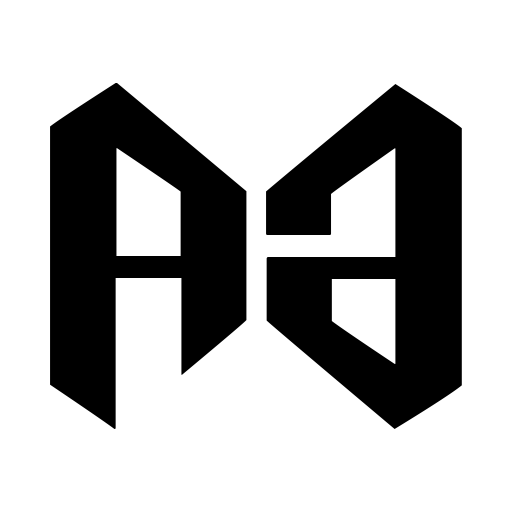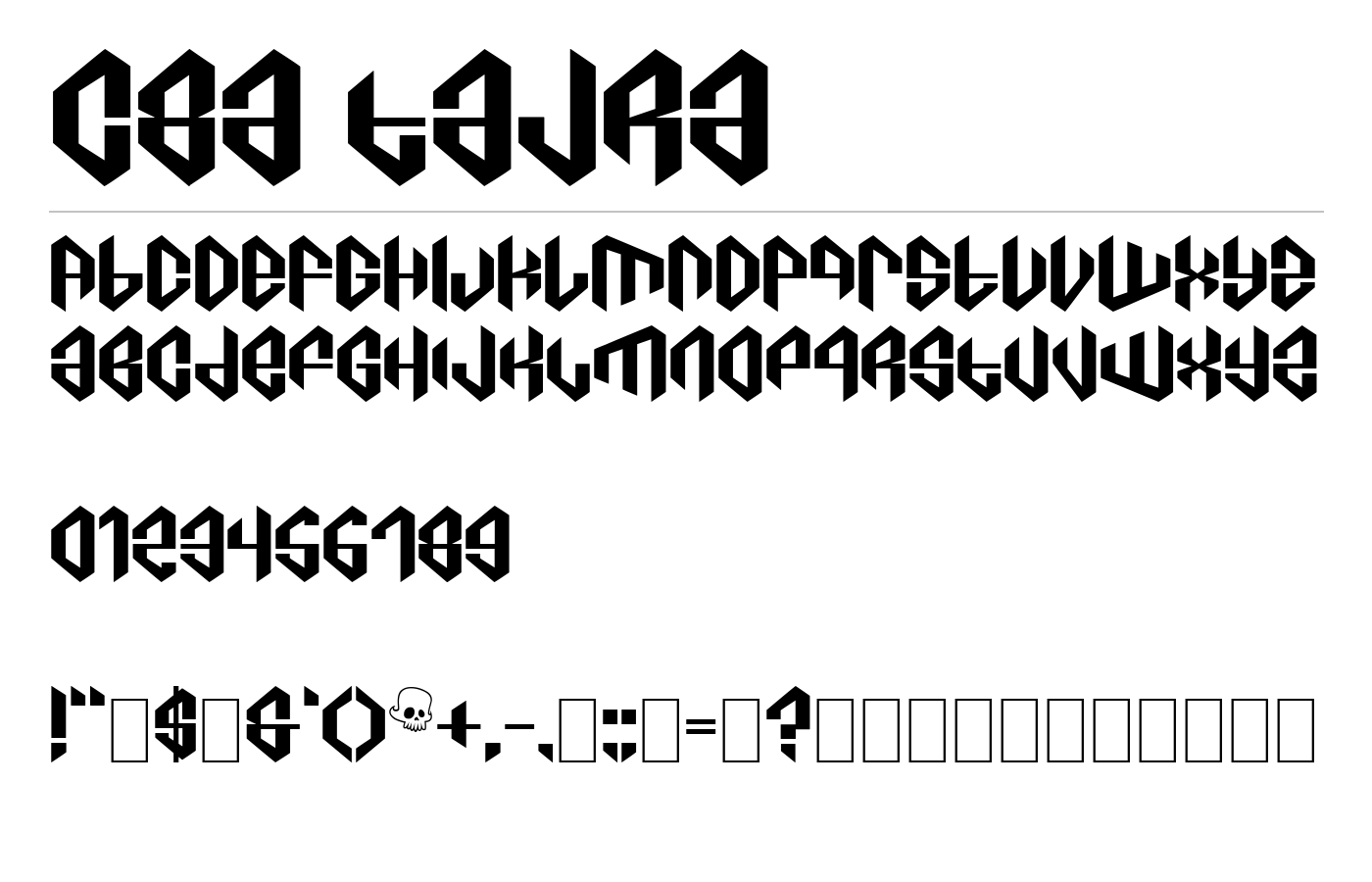
c8a Tajra is a bold, condensed, geometric display font with sharp, angular strokes that give it a modern, edgy feel. Its distinctive blocky letterforms and high contrast shapes make it ideal for attention-grabbing headlines, logos, and posters where a strong, futuristic vibe is desired. This font works best in creative branding and visual projects that need a striking, unconventional style.
c8a tajra Font
About c8a tajra Font
| Designer | Lukas Kohler |